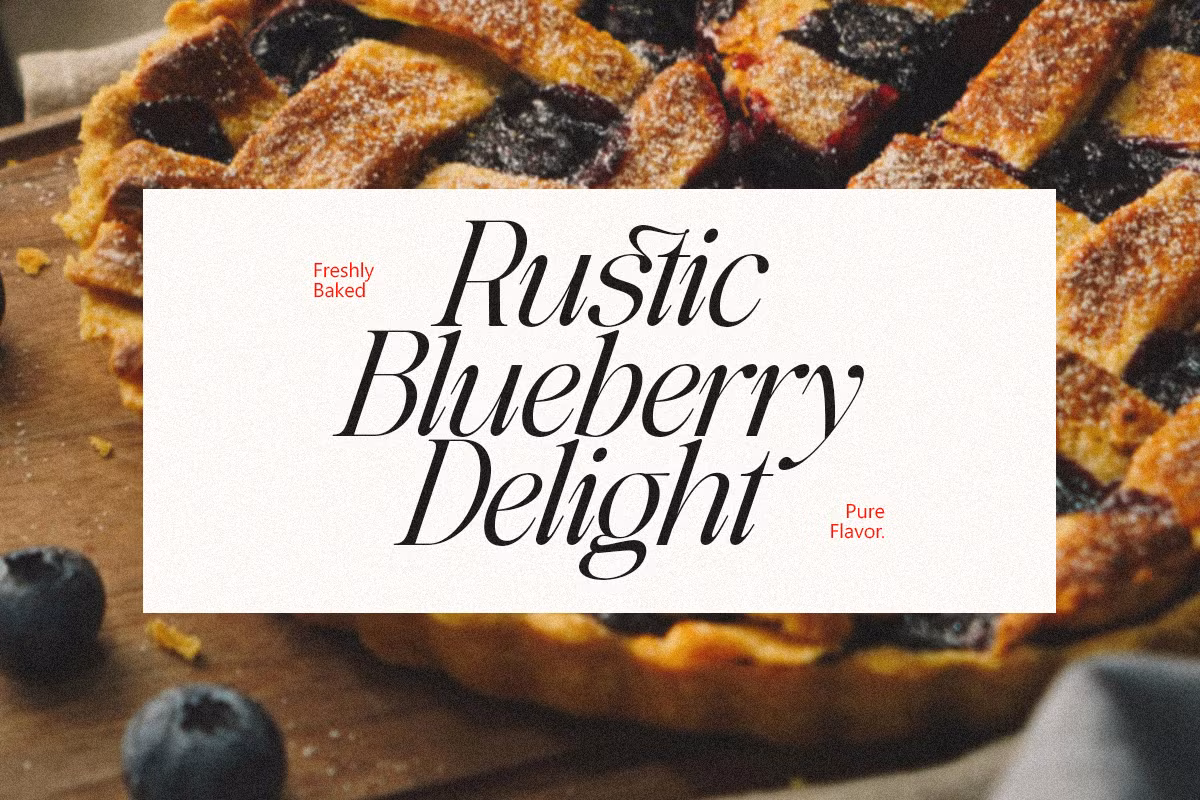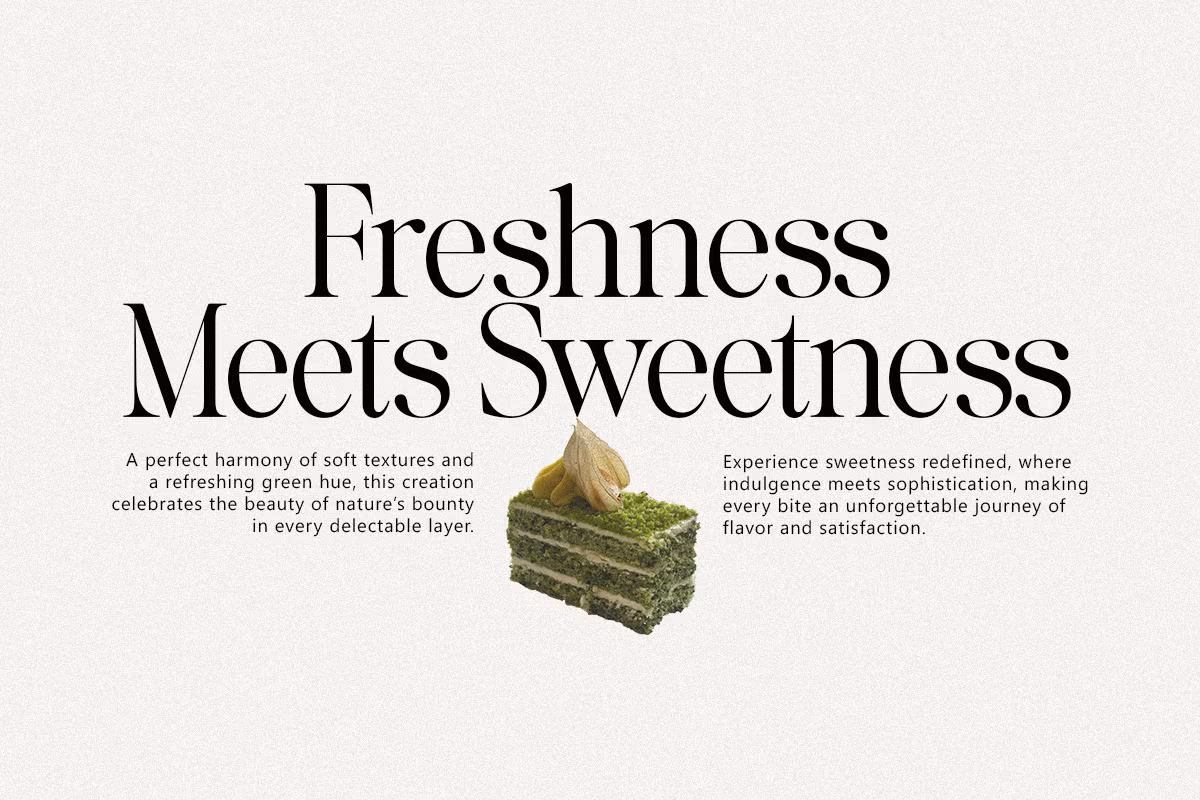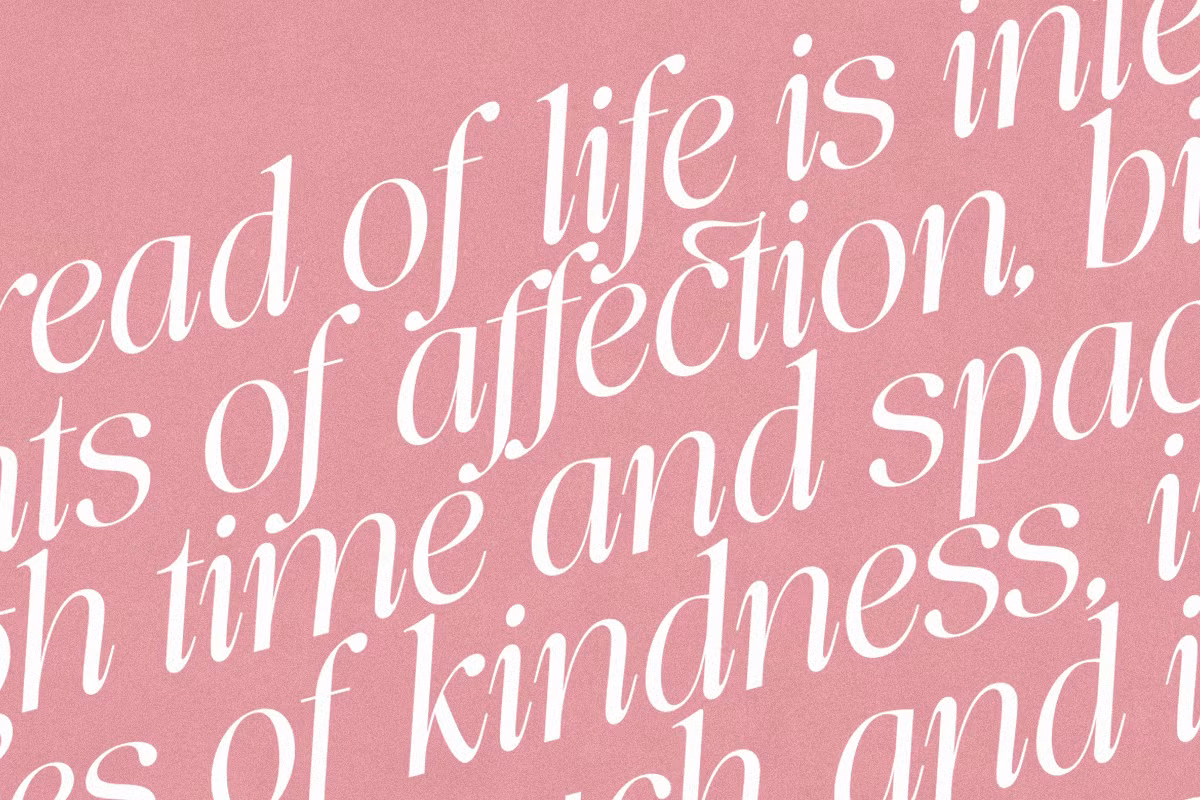
Glisstory: A Typeface for Timeless Elegance
Glisstory is a typeface that brings together classic style and modern flexibility. It’s a sophisticated font that’s sure to grab attention and leave a lasting impression. Whether you’re creating a high-end brand, a stylish magazine layout, or a website that engages users, Glisstory is the perfect choice. This elegant typeface will make your design stand out from the crowd, taking your creative projects to a whole new level. With its unique blend of traditional and contemporary elements, Glisstory is versatile enough to work beautifully in a variety of design contexts, from premium branding to editorial design and web development. By using Glisstory, you can elevate your design and make it truly unforgettable.
Glisstory has a special way of designing that is easy to recognize. It uses thick and thin lines that stand out from each other, and smooth curves that flow nicely. When you put these things together, they create a feeling of high-end quality that can make any project look fancy. This makes it perfect for showing that something is refined and elegant. The simple lines and balanced shape of Glisstory make it look good with both modern and classic styles, so it can be used in many different ways.
When you carefully shape each letter, you get a good balance and it’s easy to read. This attention to detail makes the font look nice and also ensures that your writing is clear, no matter where it’s used. Glisstory works well in both printed and digital forms, which makes it a great choice for designers because it always looks good and does its job.
True Italics
What makes Glisstory special is its beautiful italic font, which was carefully designed to go perfectly with the regular letters. The italic style gives your text a smooth and elegant look, making it more interesting to read and look at. This thoughtful design touch lets you create presentations that are engaging and emotional, while still looking professional and polished. With Glisstory, you can add some flair to your text without sacrificing style or sophistication. The result is a typography that is both dynamic and refined, making it perfect for grabbing your audience’s attention and conveying your message with ease.
Character Sets and Features
Glisstory is more than just looks – it’s also packed with features that make it really useful. For instance, it’s got premium OpenType features that let designers get creative with ligatures and advanced typography controls. This means they can easily add special characters and stylistic alternates to their work, which is great for making unique and eye-catching typographic compositions. The flexibility of Glisstory is a big plus for designers who want to stand out from the crowd. With all these features, designers can unlock their full creative potential and make their work truly special. Whether it’s adding a personal touch or creating a bold statement, Glisstory’s features make it the perfect tool for the job.
Glisstory is really helpful because it works with over 90 languages, so your designs can be understood by people all around the world. This is especially great for companies that want to be known in many different countries and languages. It makes Glisstory a perfect tool for brands that want to go global. With Glisstory, you can make sure your message is clear and effective, no matter where your customers are from. This way, you can reach a lot of people and grow your brand internationally.
Variety of Styles
Glisstory is a typeface that offers a range of styles to suit different design needs. You can choose from Glisstory Regular, Glisstory Italic, Glisstory Slanted, and several other variations, including semi-expanded and semi-condensed options. This flexibility allows you to select the perfect style for your project, whether you want to make a bold statement or add a subtle touch. What’s great about Glisstory is that each style retains the typeface’s elegant characteristics, while also giving you the freedom to express your creativity. With so many options available, you can experiment with different styles to find the one that works best for your design. The various styles of Glisstory make it an ideal choice for designers who want to add some visual interest to their work.
Use Cases for Glisstory
Glisstory is really flexible, which means it can be used in lots of different ways. Let’s take a look at some of the main ways it can be used:
- Luxury Branding & Logos: Elevate your brand with Glisstory’s distinguished charm. Its elegant aesthetic is perfect for high-end products and services, helping to convey a sense of quality and sophistication.
- Editorial Excellence: Ideal for magazines, books, and newspapers, Glisstory brings a touch of sophistication that enhances the reading experience, making it suitable for both headlines and body text.
- Web & Digital: Optimized for clarity and impact, Glisstory performs exceptionally well on all screen sizes, ensuring that your digital content remains engaging and visually appealing.
- Premium Packaging: Add class to product labels, invitations, and high-end stationery. Glisstory’s luxurious look will help your products stand out on the shelf.
When it comes to typography, pairing fonts can dramatically affect the overall design. Here are some suggestions for pairing Glisstory effectively:
- Glisstory and Sans Serif: Pair Glisstory with a clean sans serif font like Montserrat or Open Sans for a modern look. This combination balances the elegance of Glisstory with the simplicity of sans serif, making it suitable for contemporary branding.
Glisstory is a typeface that combines classic style with modern flexibility, making it a great fit for many different design projects. Its sleek design, high-end features, and versatility set it apart as a must-have for designers who want to take their typography to the next level. By choosing Glisstory, you can add a touch of sophistication to your work and create designs that really stand out. Whether you’re working on a simple project or something more complex, Glisstory is a great choice because it’s easy to use and looks amazing. With Glisstory, you can create beautiful designs that leave a lasting impression on your audience.